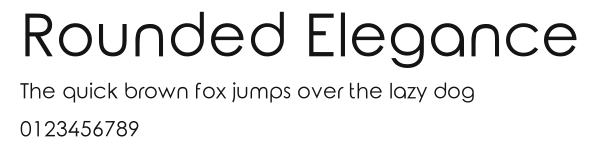
• Font Name: Rounded Elegance
• Designer: Douglas Charles Cunha
About Rounded Elegance.ttf
Rounded Elegance.ttf is a modern, elegant sans-serif font designed for ultimate readability and visual harmony. Perfect for branding, headlines, web design, and print materials.